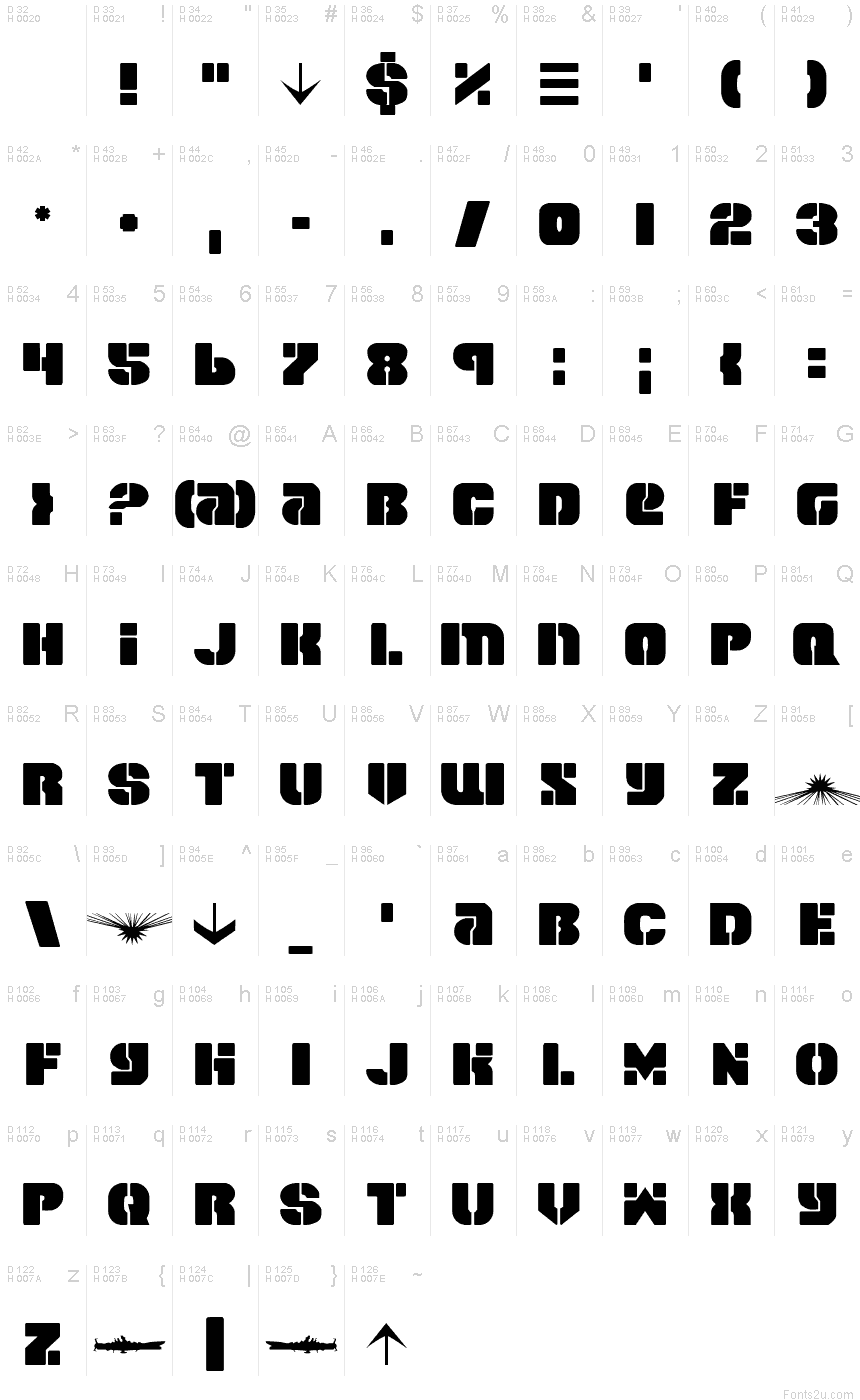
Space Cruiser by Iconian Fonts is a free futuristic stencil display font built from broad geometric forms and sharply cut gaps with a dense, blocky silhouette. Rounded outer curves meet squared joins, and the repeated breaks make the letters resemble segmented machinery or panels from a spacecraft console rather than conventional type.
It could shape arcade game titles and electronic music posters with conviction. For signage and packaging, its segmented silhouettes can turn a name into a machine-like emblem suited to robotics products, science-fiction entertainment, and space-themed events built around intricate technical diagrams, detailed spacecraft illustrations, or complex vehicle imagery.
Space Cruiser